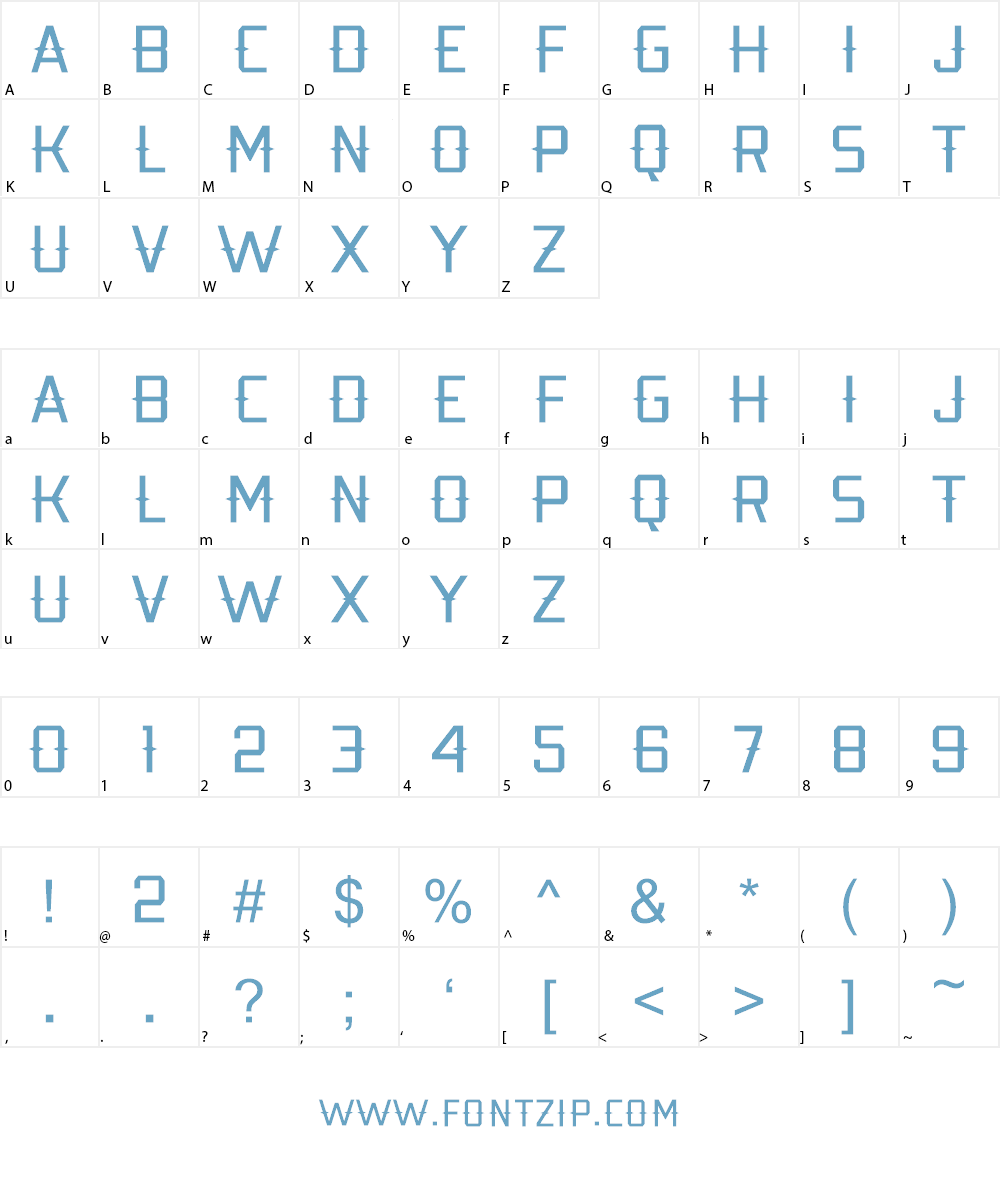
Kobarapi is derivative version of Emillio 19 font that separated from Emillio family.
Kobarapi comes from three Indonesian words, 'kobar', 'bara' and 'api' which means 'flame', 'ember' and 'fire'.